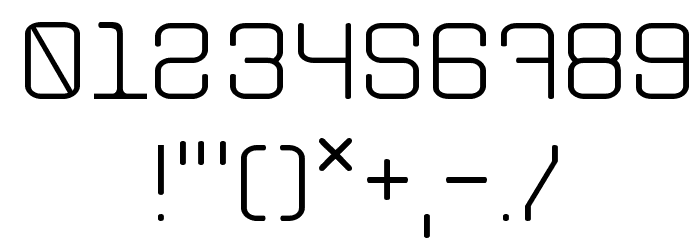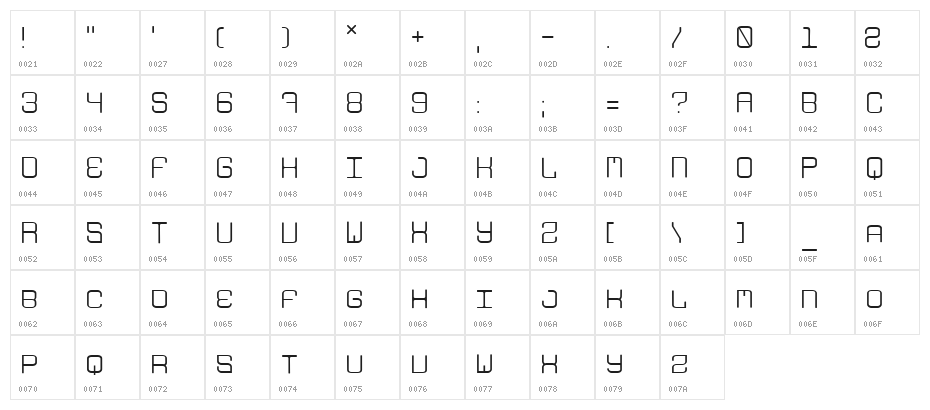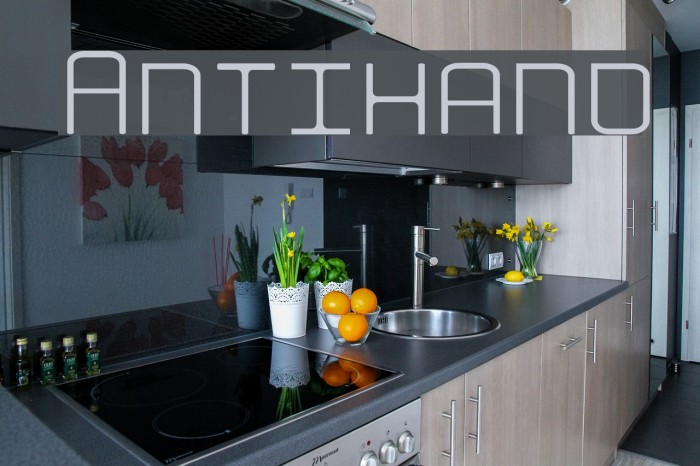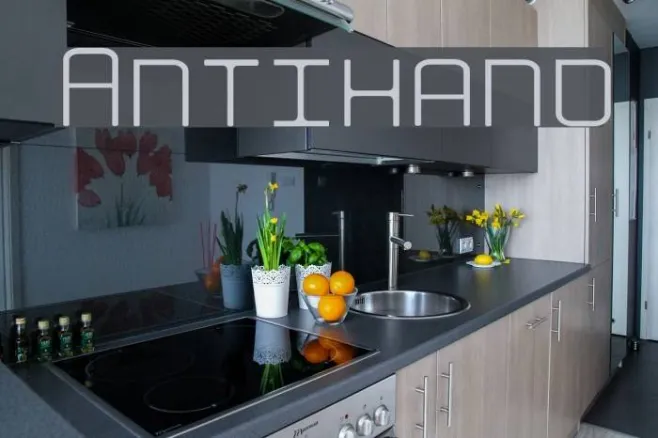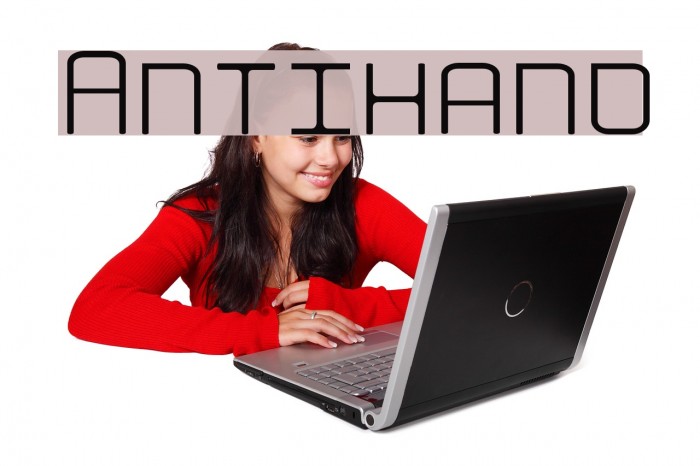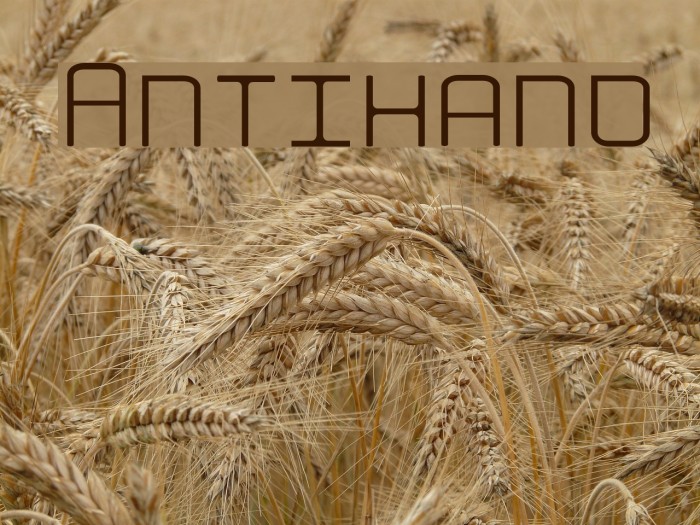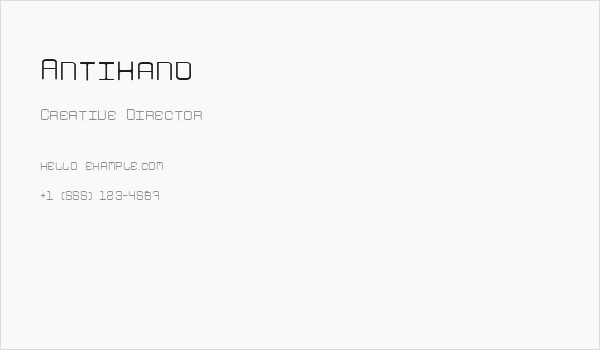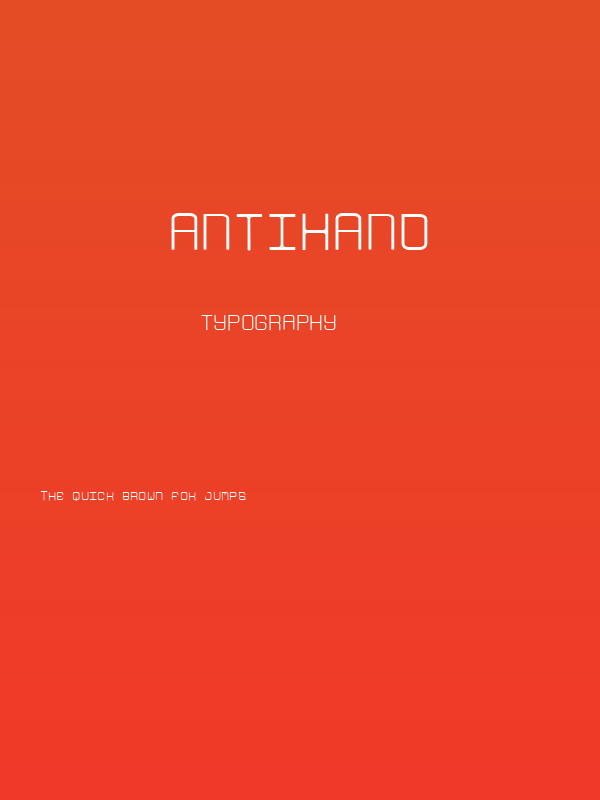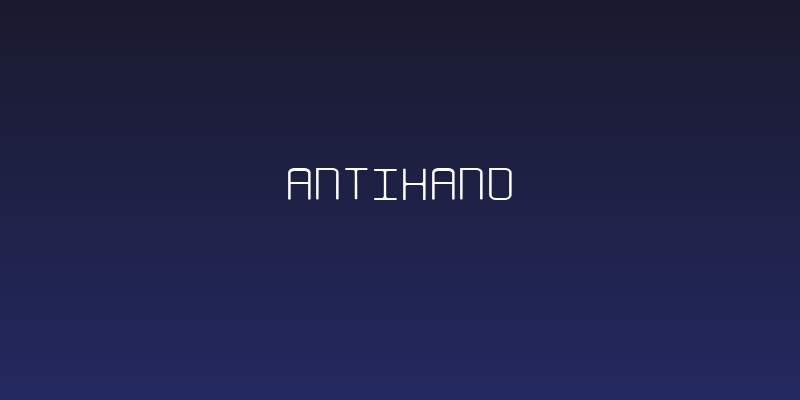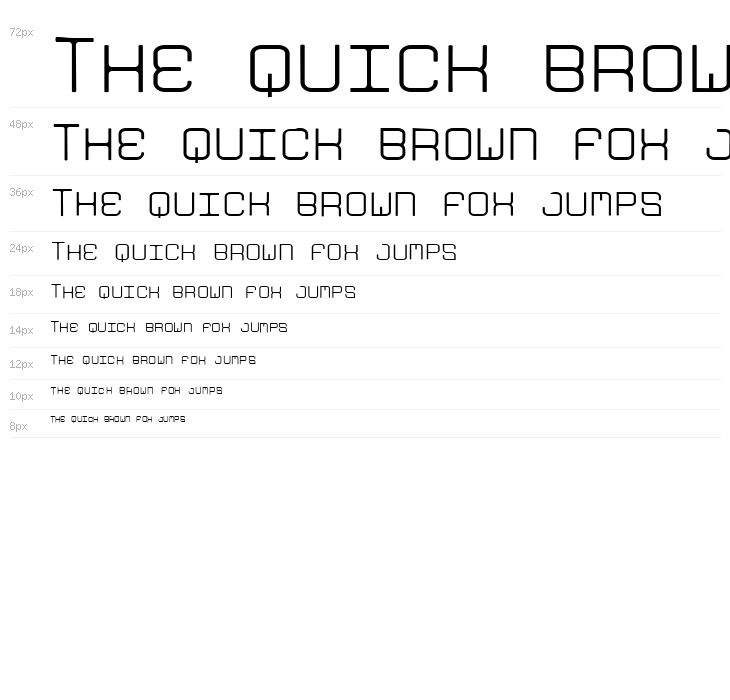
Antihand Font
Antihand Description
This font features a geometric, monospaced design with a modern and technical appearance. Each character is constructed with consistent line thickness, creating a uniform and structured look. The rounded corners soften the overall feel, adding a touch of approachability to its otherwise mechanical style. The uppercase and lowercase letters maintain a similar height, enhancing the font's uniformity. The numerals and special characters follow the same design principles, ensuring a cohesive appearance across all elements. This font's clean and precise lines make it suitable for digital interfaces and technical documentation.
| Use Case | Digital interfaces, Technical documentation, Coding environments |
| Proposed Projects | Ideal for coding environments, technical documentation, digital interfaces, and modern branding projects. |